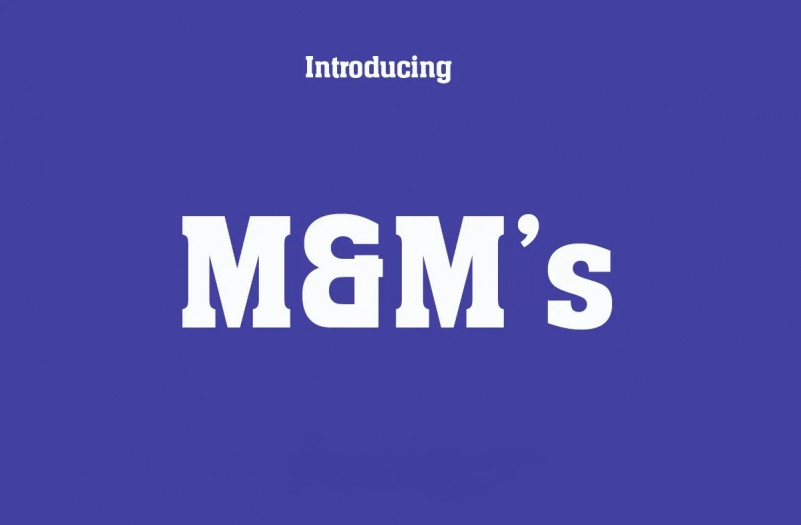
M&M’s Logo Font
M&M font is an abbreviation for a font used to design the logo for the popular M&M brand. Maybe many of you do not know this M&M brand, this is the name of a confectionery brand from the United States. M&M was born in 1941 and quickly expanded its influence in major markets not only in the United States but also in other developed countries.
The letter “m” in the M&M logo has many similarities with the characters of two premium Slab Serif fonts known as Aachen SB-Medium Font and ITC Lubalin Graph Demi font. These are two commercial fonts and if you look closely, there is almost no obvious difference between the characters of these two fonts and the characters on the M&M logo.